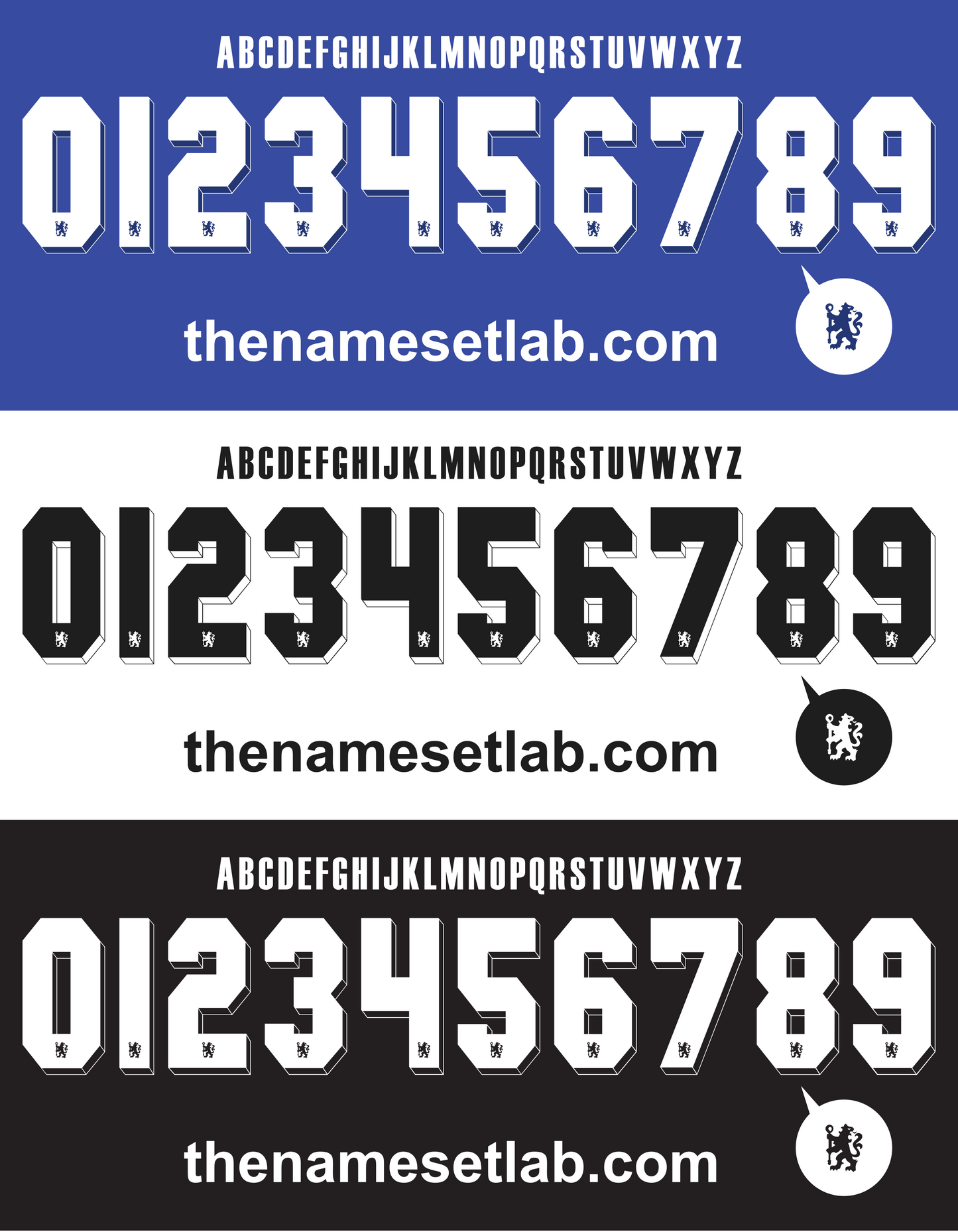
Chelsea 2011-2012 UCL / Cup Font Nameset AI Vector File
Download this Chelsea 2011-2012 UCL / Cup nameset as a high-resolution .ai vector file. Designed in the Chelsea 11/12 font, it’s perfect for recreating Champions League or cup shirts, personal design projects, or enhancing your football memorabilia collection.